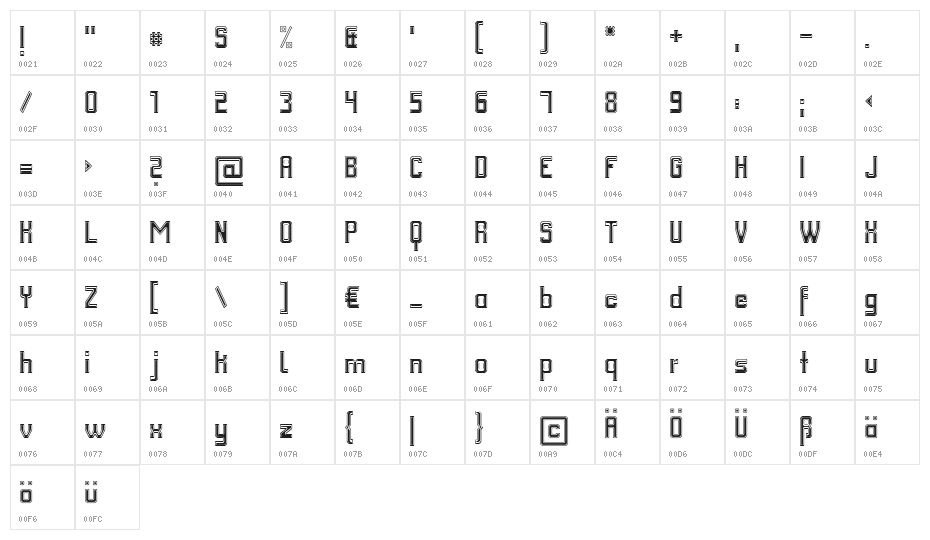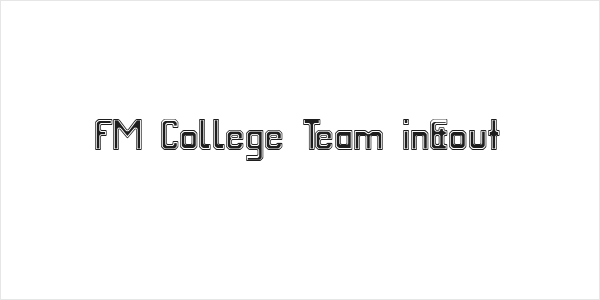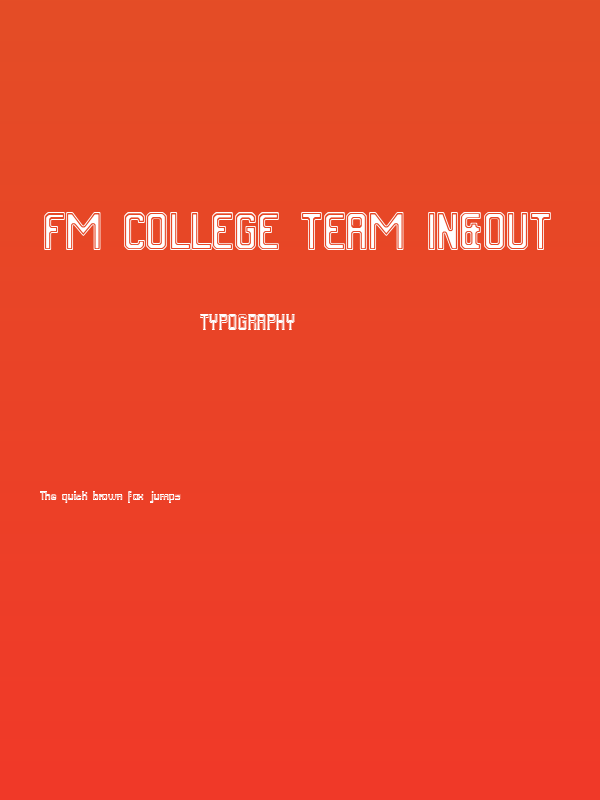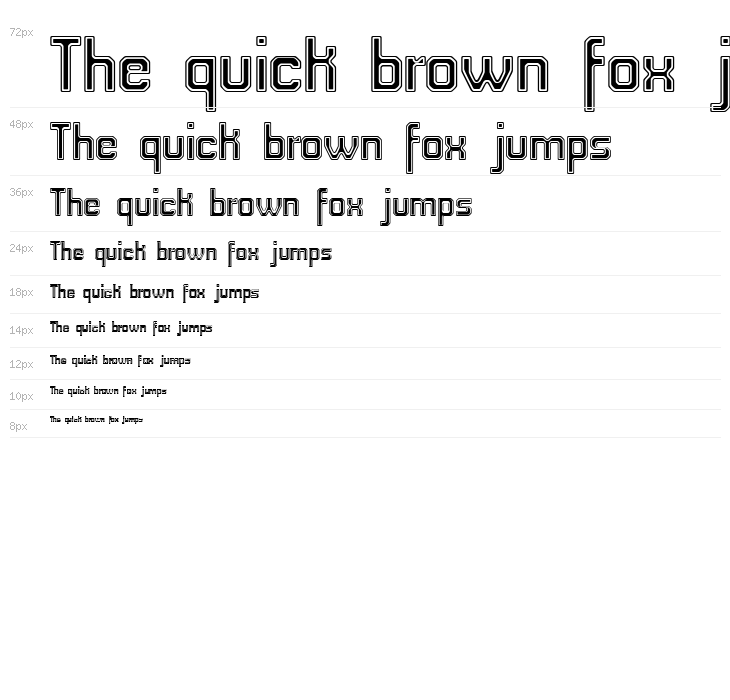
FM College Team in&out Font
FM College Team in&out Description
This font features a bold, outlined style with a geometric and structured appearance. Each character is defined by a double-line border, creating a hollow effect that adds depth and dimension. The uppercase and lowercase letters maintain a consistent height, emphasizing uniformity and balance. The numerals and special characters follow the same design principles, ensuring a cohesive look across all elements. The font's clean lines and modern aesthetic make it suitable for a variety of applications, where a strong and impactful visual presence is desired.
| Proposed Projects | Ideal for sports team branding, college-themed designs, posters, and merchandise that require a bold and impactful typeface. |